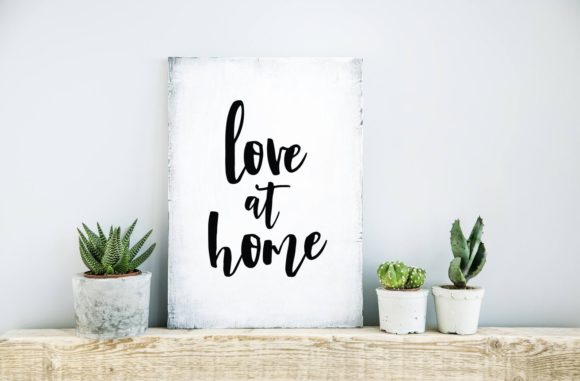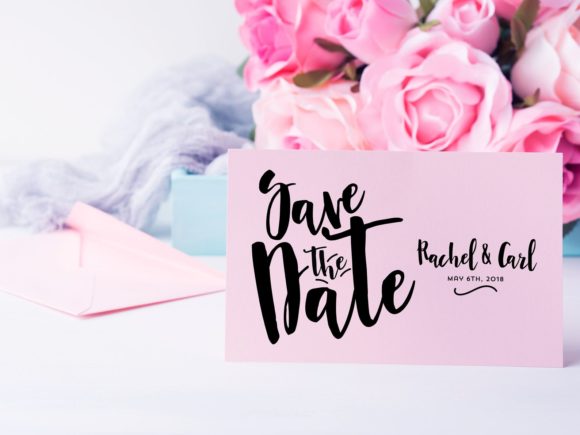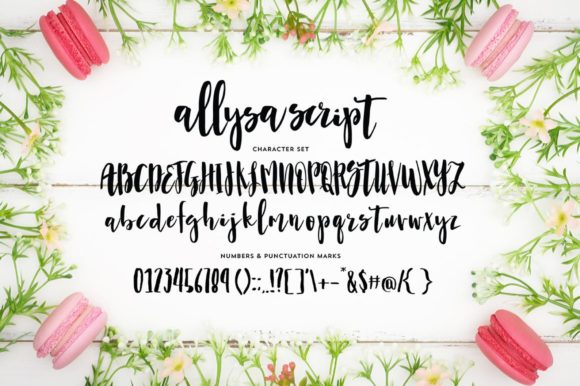
Introducing Allysa Script Font: The Sweet and Delicate Handwritten Font for Your Design Needs
Are you a designer or crafter looking for a font that can add a touch of elegance and sophistication to your designs? Look no further than Allysa Script Font. This beautiful handwritten font is perfect for a variety of design projects, including wedding invitations, thank you cards, quotes, greeting cards, logos, business cards, and more.
The Characteristics of Allysa Script Font
Allysa Script Font is a sweet and delicate handwritten font that is sure to capture the hearts of designers and crafters alike. Its elegant and flowing lines make it perfect for designs that require a touch of sophistication and refinement. The font is highly legible, making it easy to read and understand, even at small sizes.
What Makes Allysa Script Font So Versatile?
One of the things that makes Allysa Script Font so versatile is its ability to be used in a wide range of design projects. Whether you’re creating a wedding invitation, a thank you card, or a logo, this font is sure to add a touch of elegance and sophistication. Its delicate lines and flowing curves make it perfect for designs that require a touch of whimsy and romance.
Allysa Script Font is a popular choice for wedding and event designs, and for good reason. Its elegant and sophisticated lines make it perfect for wedding invitations, save the dates, and other event-related designs. The font is also highly customizable, making it easy to pair with other fonts and design elements to create a unique and personalized look.
Great for Crafters and Small Business Owners
Allysa Script Font is not just for designers – it’s also a great choice for crafters and small business owners who want to add a personal touch to their products and marketing materials. Whether you’re creating handmade cards, gift tags, or promotional materials, this font is sure to add a touch of elegance and sophistication.
Key Features of Allysa Script Font
- Sweet and delicate handwritten font
- Elegant and flowing lines
- Highly legible
- Perfect for wedding and event designs
- Great for crafters and small business owners
- Highly customizable
Tips for Using Allysa Script Font
Here are a few tips for using Allysa Script Font in your designs:
- Use it as a headline font to add a touch of elegance and sophistication
- Pair it with other fonts to create a unique and personalized look
- Use it for body text to add a touch of whimsy and romance
Allysa Script Font is a beautiful and versatile handwritten font that is perfect for a wide range of design projects. Its elegant and flowing lines make it perfect for designs that require a touch of sophistication and refinement. Whether you’re a designer, crafter, or small business owner, this font is sure to become a favorite in your design arsenal.